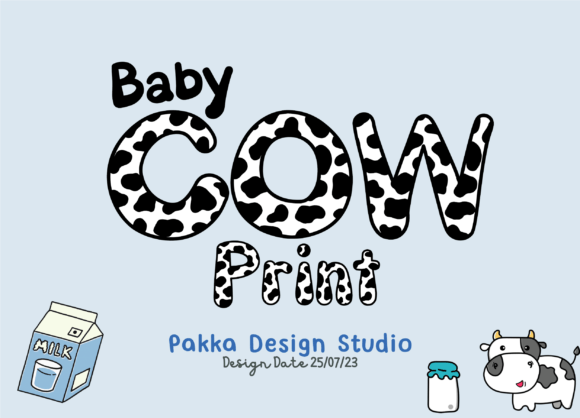
The Cutest Font in Town: Unleashing the Adorable Baby Cow Print Font
Who hasn’t dreamed of creating a design that’s as adorable as a baby cow’s first wobbly steps? For designers, the perfect font can be the key to unlocking a world of creativity and joy. And that’s exactly what the Baby Cow Print Font promises to deliver – a sweet and innocent typography that captures the essence of childhood.
With its playful cow print-inspired design, the Baby Cow Print Font is the perfect choice for designers looking to add a touch of whimsy to their projects. Whether you’re creating baby shower invitations, nursery decor, or any other design that needs a dose of cuteness, this font is sure to deliver. Its value lies in its ability to evoke a sense of fun and joy, making it an essential tool for any designer looking to bring a smile to their audience’s faces.
Baby Cow Print Font Key Features
- Unique Characteristics: The font features a playful, hand-drawn design with a cow print pattern, making it perfect for creative and whimsical projects
Baby Cow Print Font Review
I recently had the chance to work with the Baby Cow Print Font, and I have to say, it’s a unique addition to any design project. ✨ The whimsical cow print pattern adds a touch of playfulness and charm to any text, making it perfect for children’s books, nursery decor, or even a fun branding project.
- ✨ The font is easy to read, even at smaller sizes, which is a must for any font.
- ✨ The cow print pattern is customizable, so you can adjust the size and spacing to fit your design needs.
- ✨ The font is available in a range of weights, from light to bold, giving you flexibility in your design.
- ⚠️ The font may not be suitable for all design projects, especially those that require a more professional or formal tone.
- ⚠️ The cow print pattern can be overwhelming if used too extensively, so be sure to balance it with other design elements.
Overall, I think the Baby Cow Print Font is a fun and creative addition to any design project. While it may not be suitable for every project, it’s perfect for those that need a playful touch. With a little bit of creativity, you can use this font to create something truly special.
Tips for Getting the Most Out of Baby Cow Print Font
Use the Baby Cow Print font for:
- Children’s book covers and illustrations.
- Animal-themed designs and marketing materials.
Experiment with different font sizes, colors, and styles to create a unique and eye-catching design.
Pacifico is a beautiful, elegant font perfect for creating a luxurious and sophisticated look. It features a flowing script with a relaxed feel, making it ideal for branding, packaging, and invitations. Compared to Baby Cow Print Font, Pacifico has a more refined and polished look, making it suitable for high-end designs.
Great Vibes is a modern, handwritten font that adds a touch of personality to designs. It features a fun and playful feel, making it perfect for social media graphics, advertising, and editorial content. Compared to Baby Cow Print Font, Great Vibes has a more casual and informal tone, making it ideal for creative and youthful designs.
Carolyna Pro is a elegant, modern script font that features a sophisticated and refined look. It’s perfect for creating a high-end and luxurious feel in designs, making it ideal for branding, packaging, and advertising. Compared to Baby Cow Print Font, Carolyna Pro has a more polished and sophisticated look, making it suitable for premium designs.
Alex Brush is a beautiful, elegant font that features a handwritten feel. It’s perfect for creating a unique and personal touch in designs, making it ideal for branding, packaging, and invitations. Compared to Baby Cow Print Font, Alex Brush has a more refined and sophisticated look, making it suitable for high-end designs.